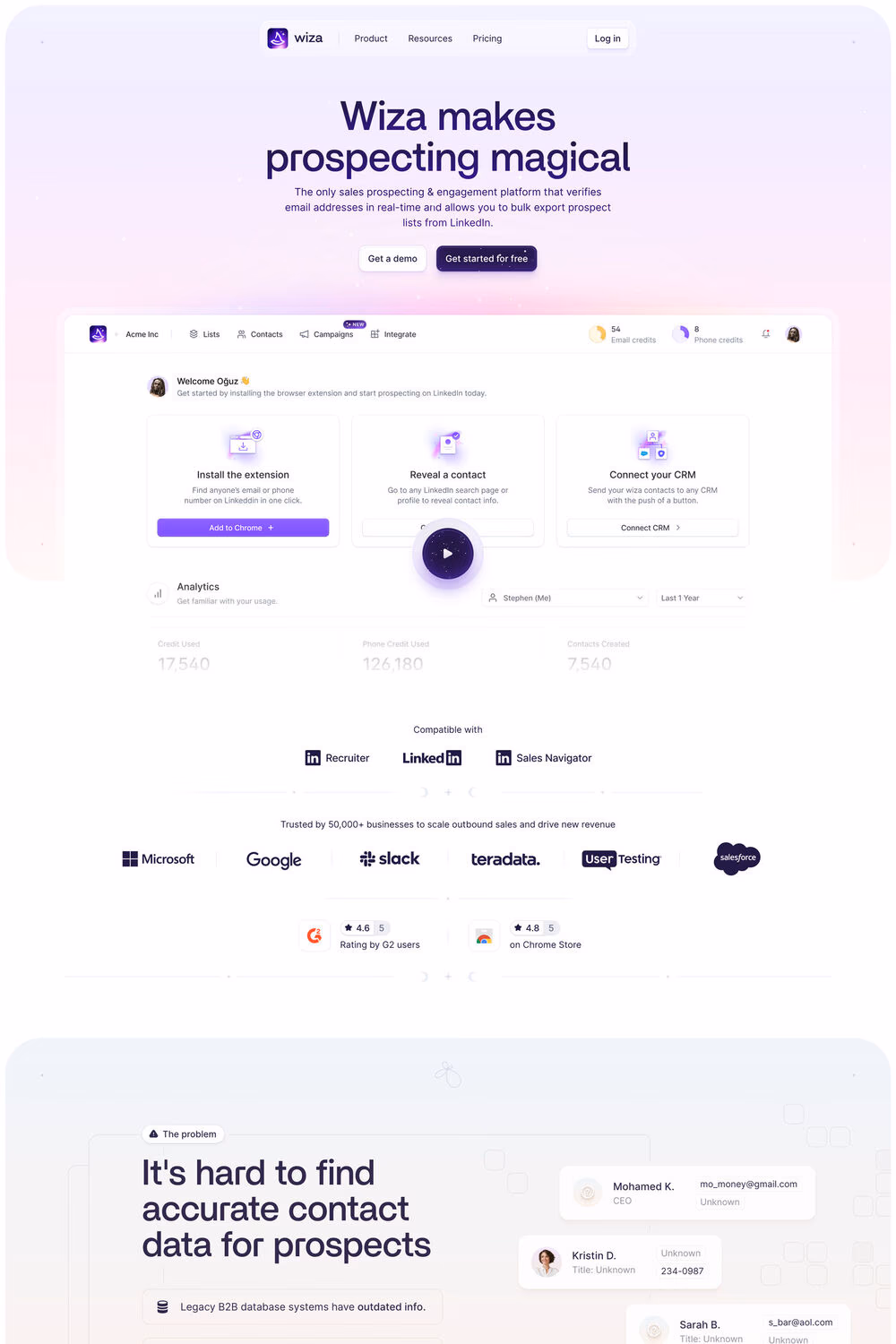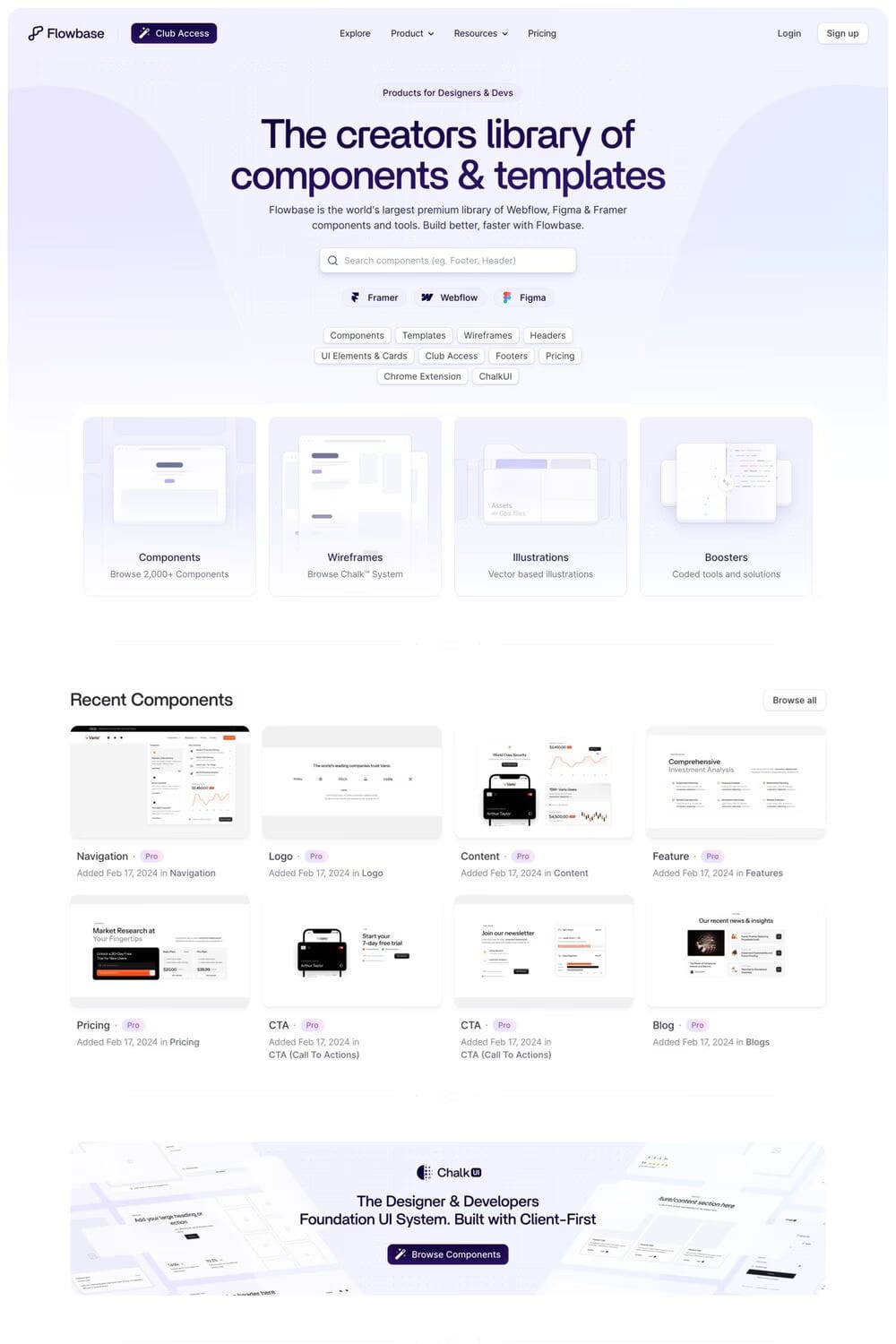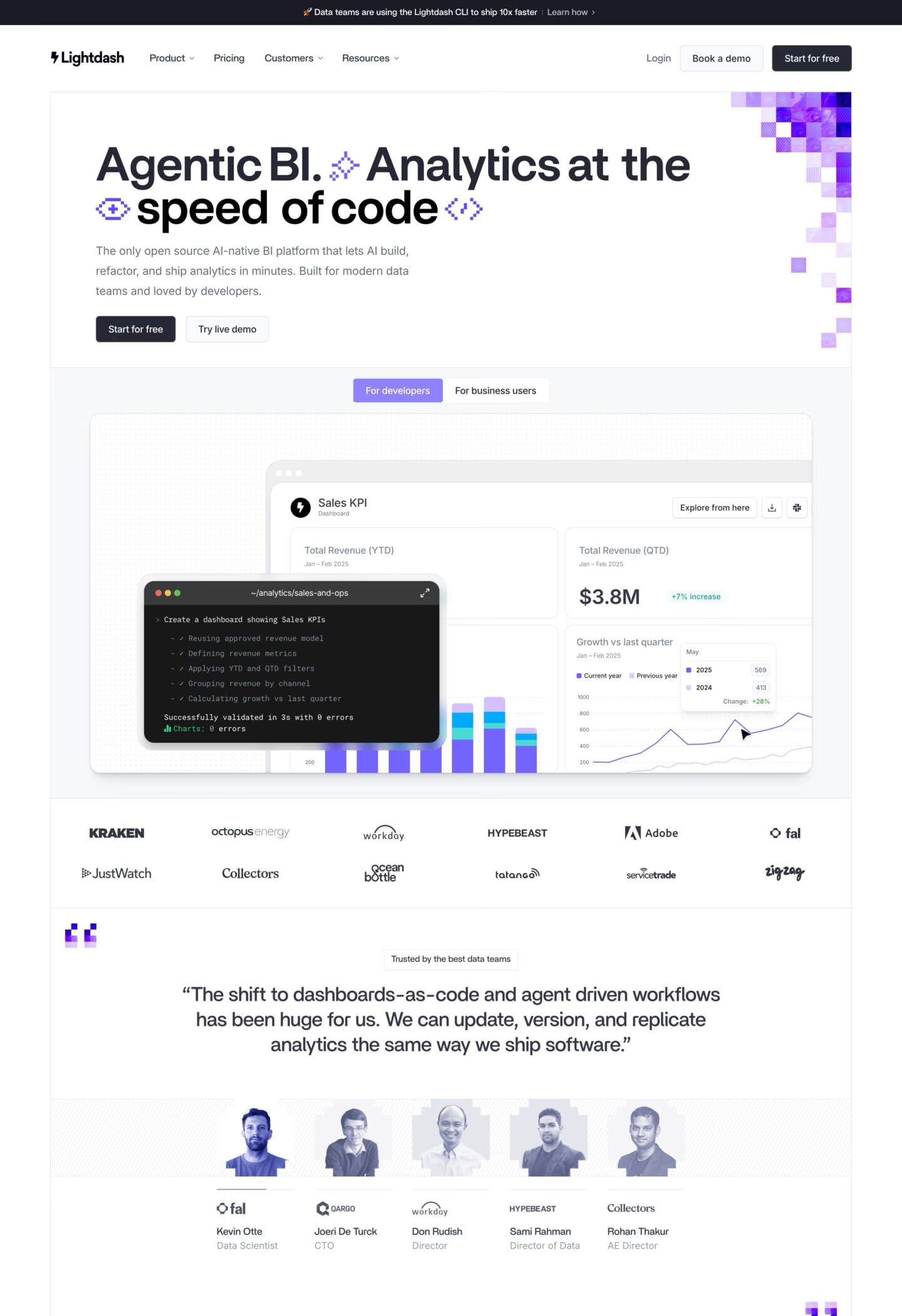
Britti Sans is a sans-serif typeface from Nois.
Britti Sans is a modern grotesque typeface that has geometric details and deep roots in industrial design principles. Its opentype features (alternate characters, localised characters, multilingual characters) give it greater versatility allowing it to adapt to a wide range of contexts. Among its features are contextual alternates, uppercase and lowercase localized Sharp S, numerators and denominators, a wide range of currency symbols including the Bitcoin symbol, emojis and icons, proportional and tabular numbers, fractions and circled numbers.
A1 features 3 websites using Britti Sans, including Lightdash, Flowbase, and Wiza. They lean towards Pattern, Animated, and Gradients design styles, and they’re most often built with Webflow and Framer.